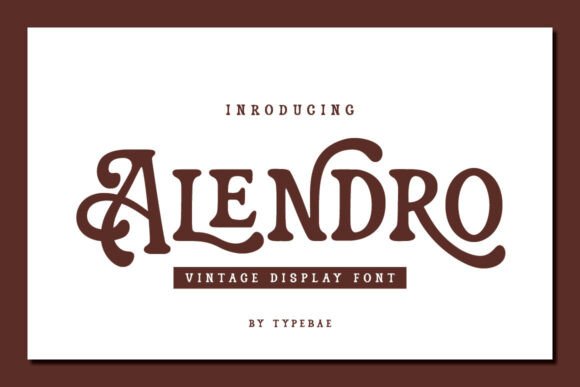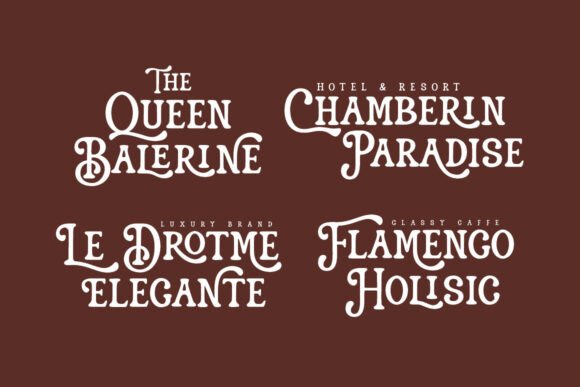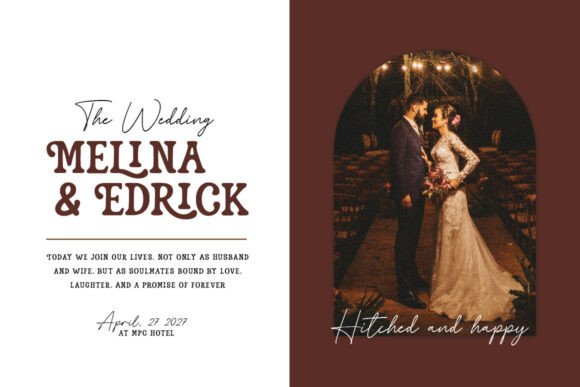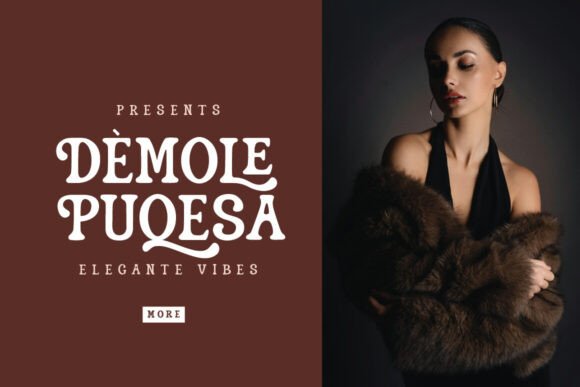
Alendro Font: Retro Display Typography for Vintage Branding & Logos
About the Alendro Font
Discover the charm of Alendro Font. This font is a perfect blend of modern aesthetics and classic appeal. Alendro is a stylish vintage display font that brings a luxurious retro and playful vibe to any design. With graceful curves and ornate letterforms, it’s perfect for branding, packaging, logos, headlines, and boutique labels. Whether you’re crafting a classy cafe identity or a high-end fashion label, Alendro adds a timeless, artistic touch to elevate your visual message.
Alendro’s ornate details make it unsuitable for body text or UI elements where readability is paramount. Its playful vintage style excels in headlines, logos, and short, impactful statements across various media, such as posters and packaging for luxury goods or boutique brands. Avoid using it for large blocks of text.
The font’s inherent boldness pairs well with clean, minimalist sans-serifs like Montserrat or Open Sans for a balanced contrast. For a more vintage-inspired aesthetic, consider pairing Alendro with a classic serif like Garamond or Didot. A touch of elegance can be added by incorporating a delicate script font like Allura as an accent.
Alendro’s core personality is sophisticated yet playful, lending itself to brands seeking a timeless yet approachable feel. It’s ideal for projects that evoke a sense of nostalgia and luxury, such as vintage-inspired clothing lines, artisanal food products, or high-end jewelry.
Alendro Font Usage Examples
Alendro Font Example